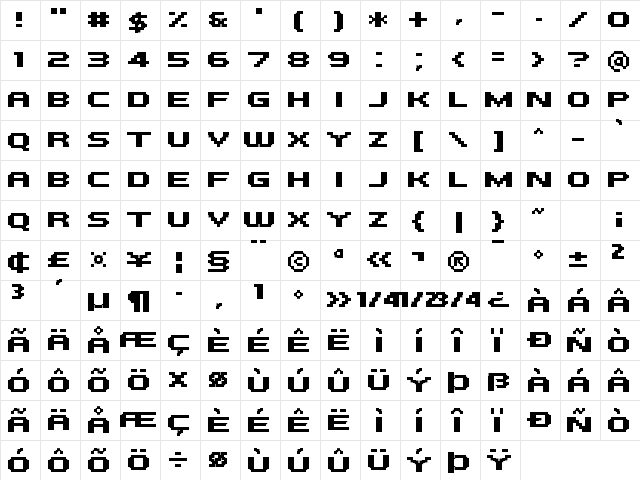
PF Tempesta Five Extended is a composed and adaptable typeface that performs quietly and consistently across a wide range of design contexts. Its bold stroke weight gives it real presence on the page.